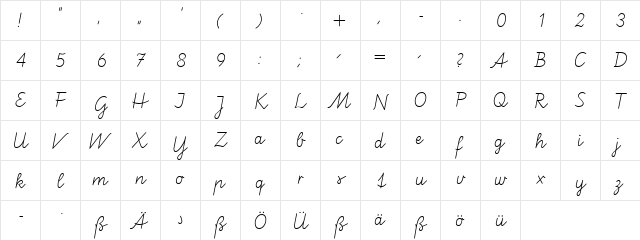
SchulschriftA Regular
Design Context for SchulschriftA Typeface
SchulschriftA takes a measured approach to typography — its balanced proportions and neutral character make it a reliable workhorse for both digital and print work.